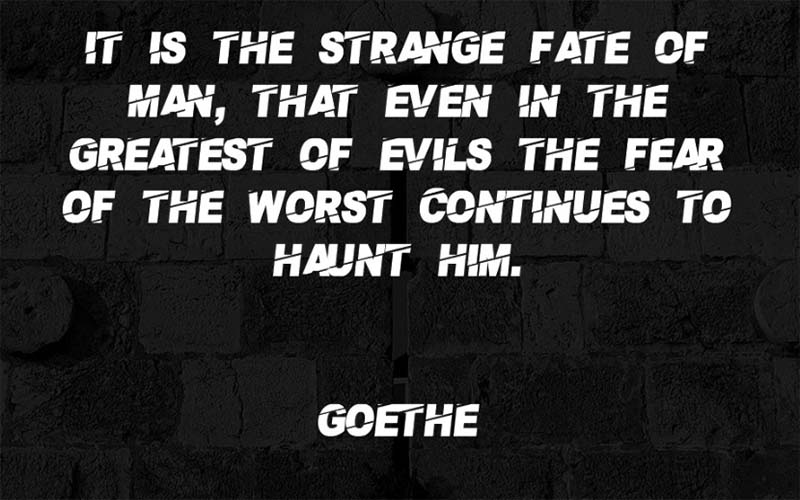
Payback Font is a royalty-free sans serif and fancy typeface that has a thick and solid texture. This font designer Jayde Garrow took charge of designing and releasing it.
The free font has come in only one style. That single style has 61 unique glypes with only 93 characters. It has a bold structure that will give a clear shape when used for large structures.
The remarkable font is ideal for different purposes such as suitable for creating fancy logo designs, product packaging, boards, banners, tattoos, quotes, unique emblems, bold headings, and many more.
With its help, everyone can use it in printing on many things besides display projects. Each style of this font has its own amazingĀ appearance and features that give any design a slight touch.
Payback Font
Some font is not capable of large textures because there is not clearly visible when they are used. But there isĀ great potential for using this cool font for this purpose.
You can use it for large tasks and also small tasks, you can use it in combination with others, So, in all cases, this great font can work in a friendly way. That’s why, you can grab it now and tailor the design to your needs.